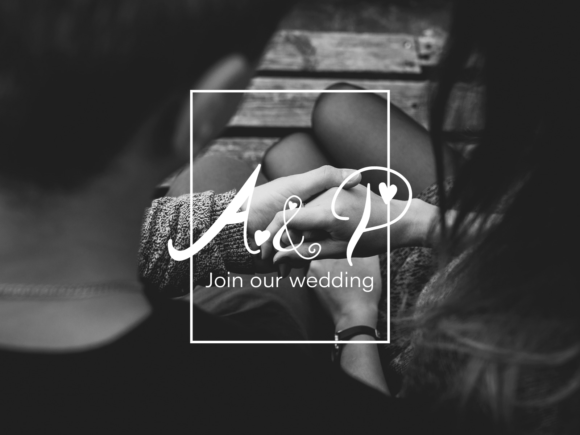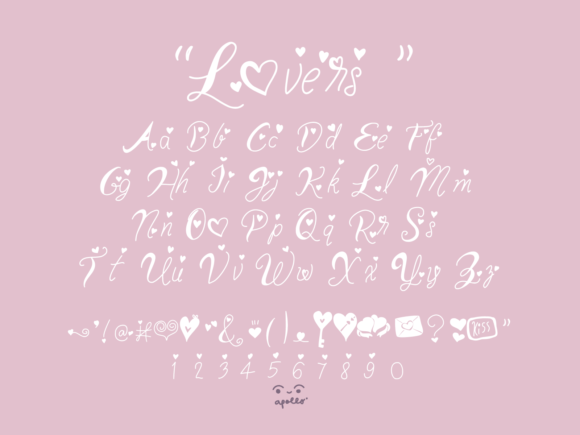
Lovers Font
Lovers Font Download – Sweet Handwritten Script
The Lovers Font download is a sweet and elegant handwritten typeface designed to bring warmth and creativity into your projects. With its natural flow and unique charm, this font adapts beautifully to countless uses, from professional branding to personal crafts. Whether you’re creating invitations, greeting cards, or social media graphics, Lovers ensures your work radiates with authenticity and style.
A Sweet and Natural Handwritten Style
The Lovers Font download captures the essence of handwritten charm with its smooth strokes and stylish curves. Its natural flow makes text look approachable and personal while maintaining elegance. This balance of beauty and readability makes it an excellent choice for many design projects.
The Lovers Font download works wonderfully for romantic and festive designs. Wedding invitations, birthday cards, and seasonal greetings come to life with its sweet and unique handwritten look. It helps create designs that are memorable and heartfelt.
Great for Logos and Branding
Typography is a cornerstone of branding, and the Lovers Font download adds personality to logos, packaging, and promotional materials. Its handwritten charm conveys authenticity, making it a great fit for lifestyle brands, creative businesses, and boutique products.
Versatile Across Digital and Print Designs
From posters and banners to digital content and social media posts, the Lovers Font download adapts seamlessly across different platforms. Its balance of style and clarity makes it suitable for both bold headlines and smaller text elements.
Readability with Unique Character
While many decorative fonts can be hard to read, the Lovers Font download maintains excellent legibility. Its neat handwritten form ensures your text is easy to understand, while its unique strokes keep it visually appealing.
Why Choose Lovers Font?
Among handwritten typefaces, the LoversFont download stands out with its natural charm and unique handwritten beauty. It is playful enough for casual projects yet elegant enough for professional branding, making it a dependable choice for designers and crafters alike.
Add Sweet Charm to Your Projects
Typography defines the mood of your work, and the LoversFont download brings warmth, sweetness, and creativity. Whether for cards, branding, or digital art, this font ensures your projects shine with timeless handwritten elegance.